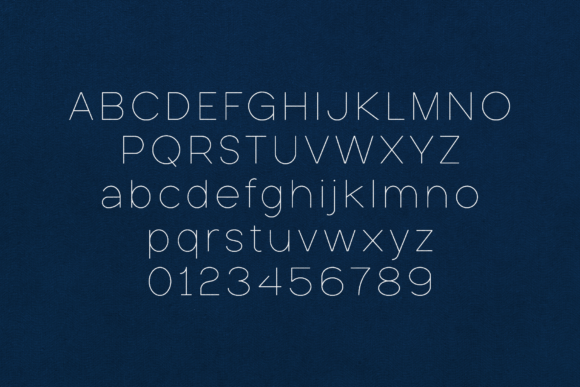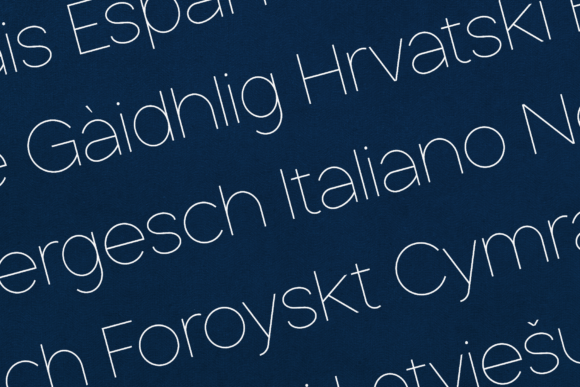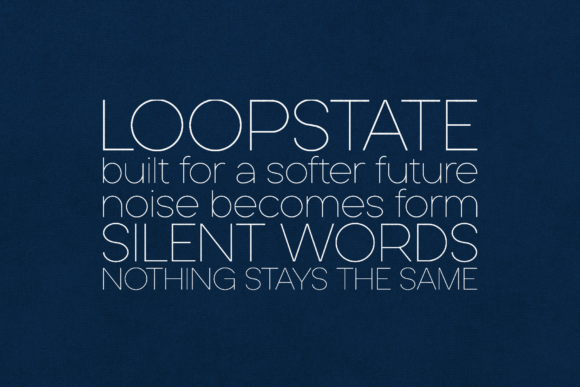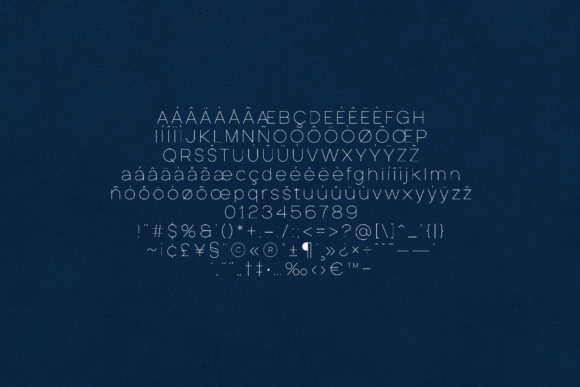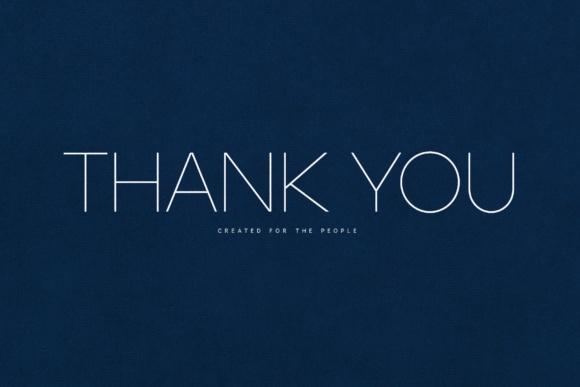
Introduction to Quasar Font
Have you ever stared at a blank canvas, eager to bring your creative vision to life, only to be paralyzed by the daunting task of choosing the perfect font? For designers, the search for the ideal typography can be a make-or-break moment in a project. But what if I told you that the solution lies in the Quasar Font?
As a design resource, Quasar Font stands out for its unique blend of clarity, elegance, and modern visual systems. With its clean monoline strokes and carefully balanced spacing, this ultra-light geometric sans serif font delivers a refined aesthetic that’s perfect for editorial layouts, luxury branding, architecture studios, and contemporary digital design.
Key Features of Quasar Font
- Unique, modern font with a transparent background, ideal for creating visually appealing designs.
- Supports a wide range of languages, making it a versatile choice for international projects.
- Features a high-resolution design, suitable for use in print and digital media.
- Includes a comprehensive character set, including Latin, Cyrillic, and Greek alphabets.
Honest Review: Quasar Font
As a designer, I’m always on the lookout for high-quality design resources to elevate my creative projects. The Quasar Font caught my attention with its sleek and modern design.
What works well: ✨ The Quasar Font offers a wide range of styles and weights, making it perfect for various design applications. The font is also incredibly versatile, suitable for both digital and print media. Plus, the free download option is a huge plus!
Some notable features include:
- Transparent background option for seamless design integration
- High-quality vector graphics for crisp and clear typography
Tips for Getting the Most Out of Quasar Font
To get the most out of Quasar Font, use it in combination with other high-quality design resources, such as graphics and images. You can also experiment with different font sizes, colors, and styles to create a unique and creative look.
Quasar Font is commonly used in a variety of creative projects, including logos, business cards, and marketing materials. Its unique and stylish aesthetic makes it perfect for any project that requires a professional and eye-catching design.